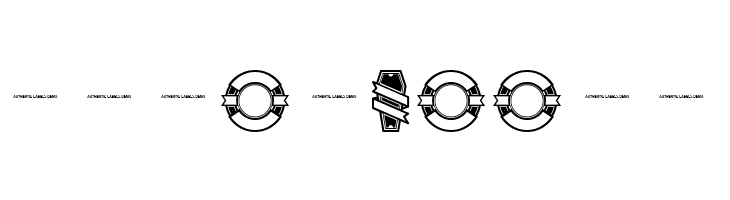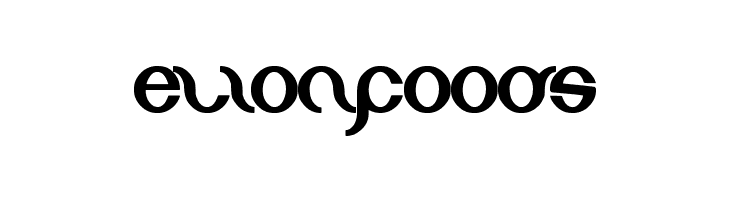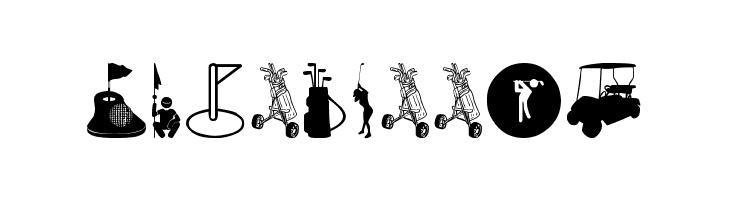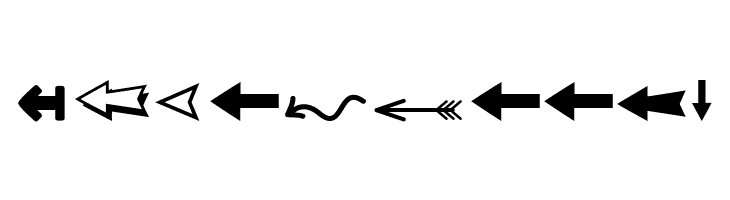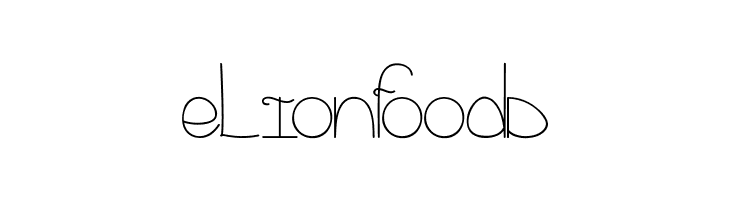
• Rough Flowers Regular
Ornamental floral dingbat collection with bold, hand-drawn style.
• Oki
A bold, blocky font with a 3D effect, ideal for digital and retro themes.
• Authentic Labels Demo
• miracle
A bold, modern decorative font with unique looped elements.
• Golf Icons
Bold, silhouette-style golf icon set.
• Einstein Grand
A cursive, elegant font with intricate loops and a graceful style.
• Elegance two
Ornate decorative frames with intricate vintage patterns.
• Follow The Arrow
A decorative font with diverse arrow designs and comic-style text elements.
• Magic Kiss
A playful, whimsical font with rounded and elongated characters, perfect for creative projects.
• Eat My Cookie
A playful, thin-stroked font with whimsical character shapes.